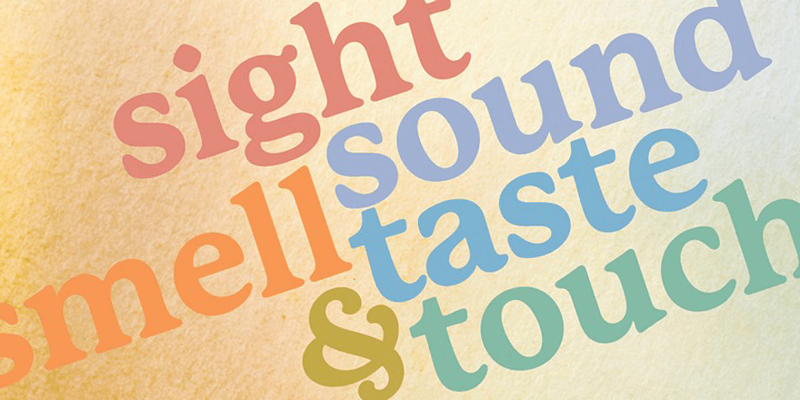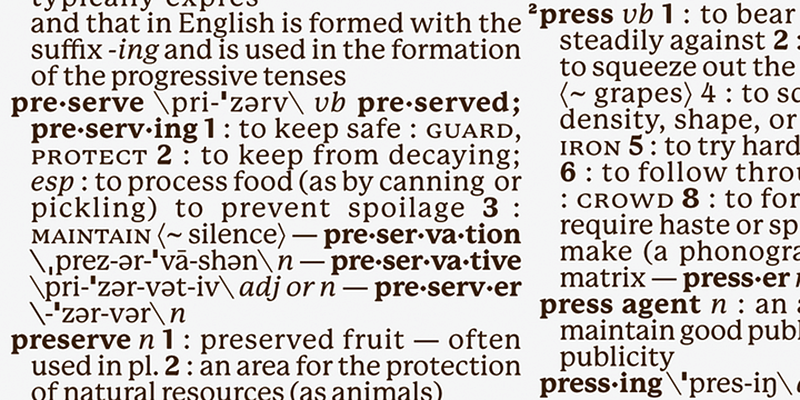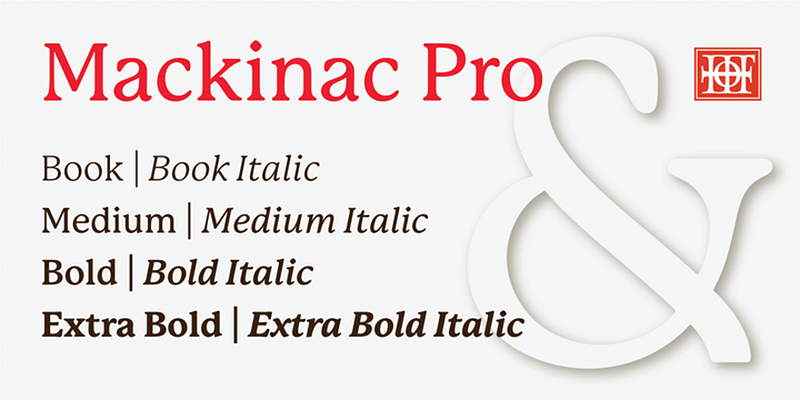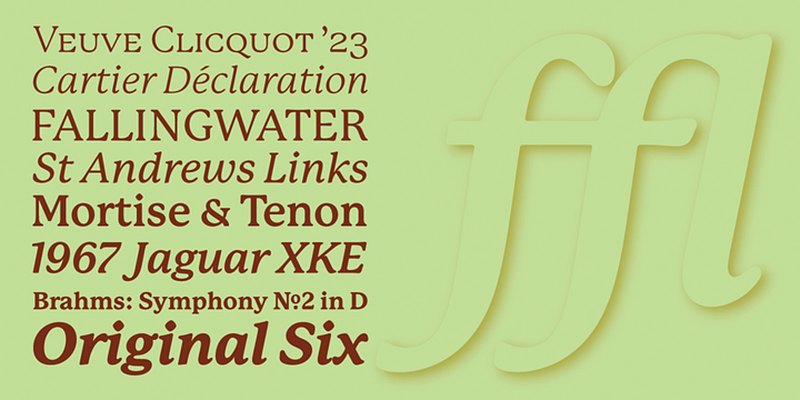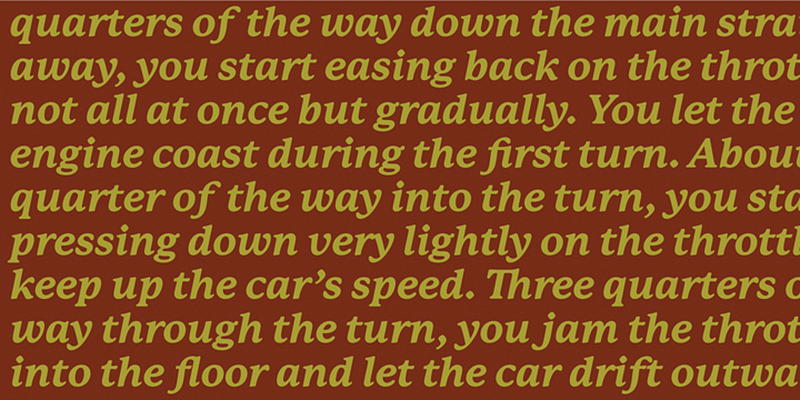
P22 Mackinac Pro is a general-purpose, utilitarian family incorporating loads of OpenType features. Versatile for text and display uses; including advertising, publishing, signage and packaging.